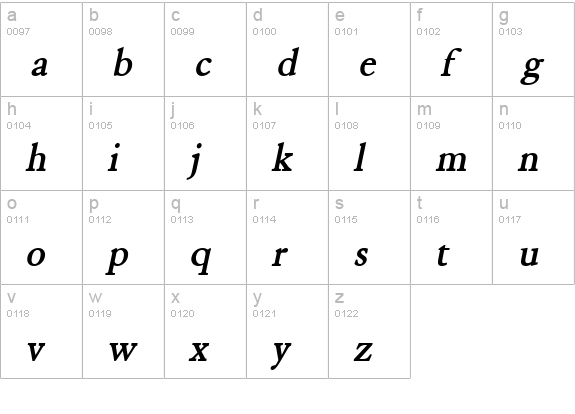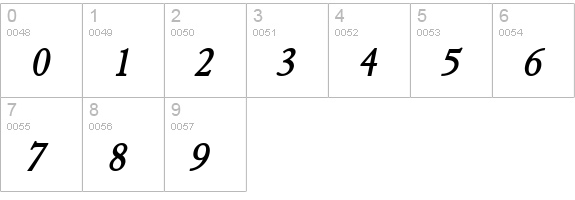
Introducing Elephant BoldItalic font - a stunning typeface that exudes power and elegance. With its strong, bold strokes and graceful italics, this font is perfect for making a statement in your designs. Whether you're creating eye-catching headlines or adding a touch of sophistication to your branding, Elephant BoldItalic has got you covered. And the best part? It's completely free! You can easily download this versatile font at FontsMarket.com and start using it in your projects right away. Don't miss out on the opportunity to enhance your designs with the timeless beauty of Elephant BoldItalic font.